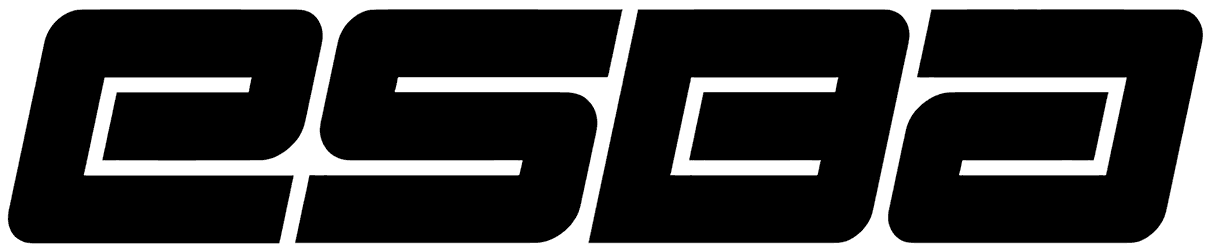
Esba Font
If you are in the middle of designing a movie poster, video game banner, application, e-book, or web page that requires a magical, futuristic touch, we have a special offer, such as Esba, for you. This all-caps futuristic font comes with a geometrical style and shares a sense of dynamic, modernity, vitality, or youth with the audience.